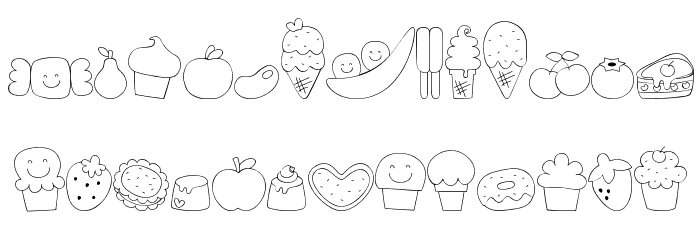
MTF Sweet Dings Font
This font is a delightful collection of sweet-themed dingbats, featuring a variety of playful and whimsical dessert and fruit illustrations. Each character is represented by a unique, hand-drawn icon, including cupcakes, ice cream cones, fruits, and candies. The style is light-hearted and fun, with a consistent line weight that gives it a cohesive look. The icons are simple yet expressive, making them suitable for adding a touch of charm to any project. The overall design is clean and easy to interpret, ensuring that each symbol is instantly recognizable.
A playful font of sweet-themed dingbats with whimsical dessert and fruit icons.
- Proposed Projects: Ideal for children's party invitations, dessert shop branding, playful packaging designs, and whimsical social media graphics.
- Overall Style: Whimsical
- Use Case: Logos, Decorative elements, Invitations